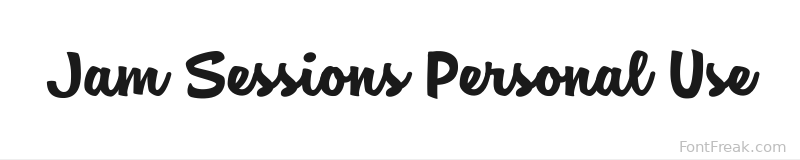
Jam Sessions Personal Use
About Jam Sessions Personal Use
The Jam Sessions Personal Use font, crafted by Billy Argel Fonts, is a delightful handwritten typeface that exudes a playful yet refined charm. This font features a casual, flowing style characterized by its smooth strokes and varied weights, lending it a sense of spontaneity and creativity. The slightly irregular letterforms contribute to its handcrafted appeal, making it ideal for projects that seek a personal touch. The spacing is well-balanced, ensuring readability while maintaining an artistic flair.
This font shines in various use cases, particularly in creative fields. It is perfect for designing wedding invitations that require a warm and inviting tone, as well as for crafting movie posters that aim to evoke a sense of adventure and fun. Additionally, its unique style makes it suitable for restaurant menus, especially those looking to convey a relaxed and casual dining experience. Content creators will also find the Jam Sessions Personal Use font invaluable for social media graphics, where a personal touch can enhance engagement.
What sets the Jam Sessions Personal Use font apart is its ability to capture a sense of joy and creativity, making it a standout choice for anyone aiming to infuse their work with a lively spirit. Its handcrafted essence coupled with its functional versatility makes this font a must-have for your design toolkit. Don’t miss the chance to explore the Jam Sessions Personal Use font free download and elevate your creative projects today.